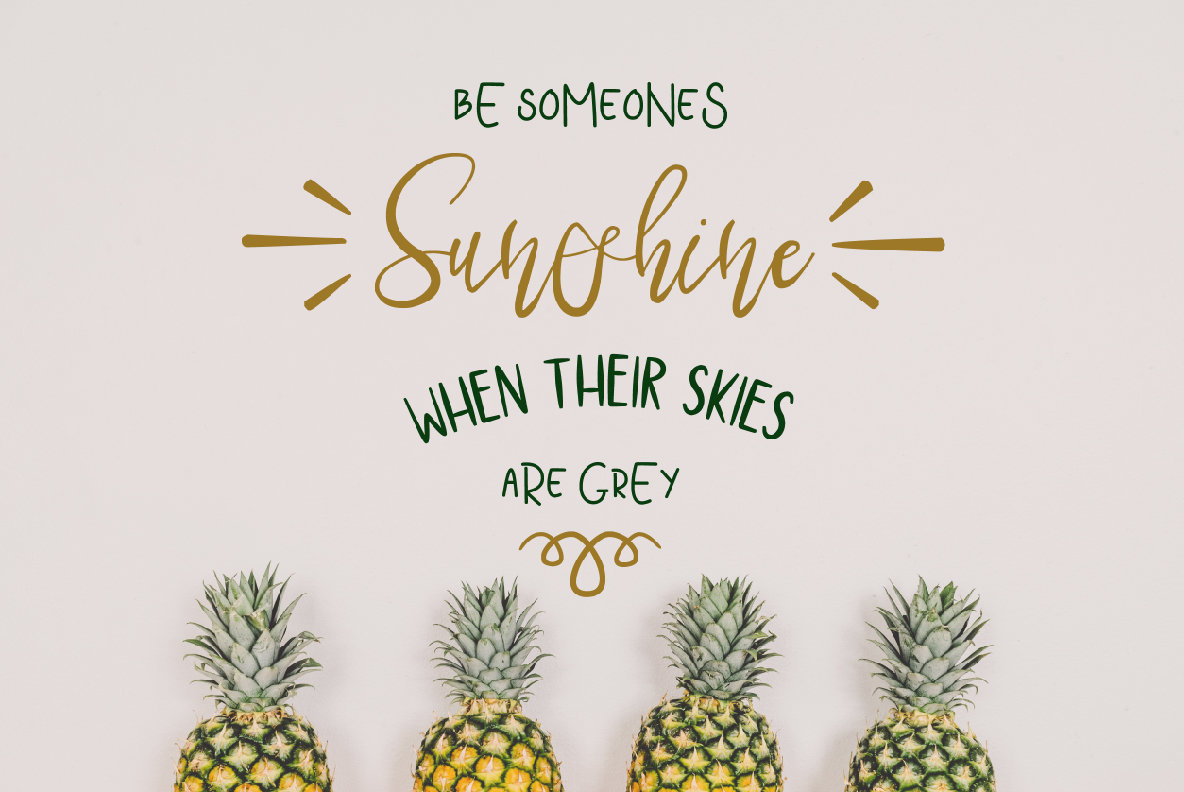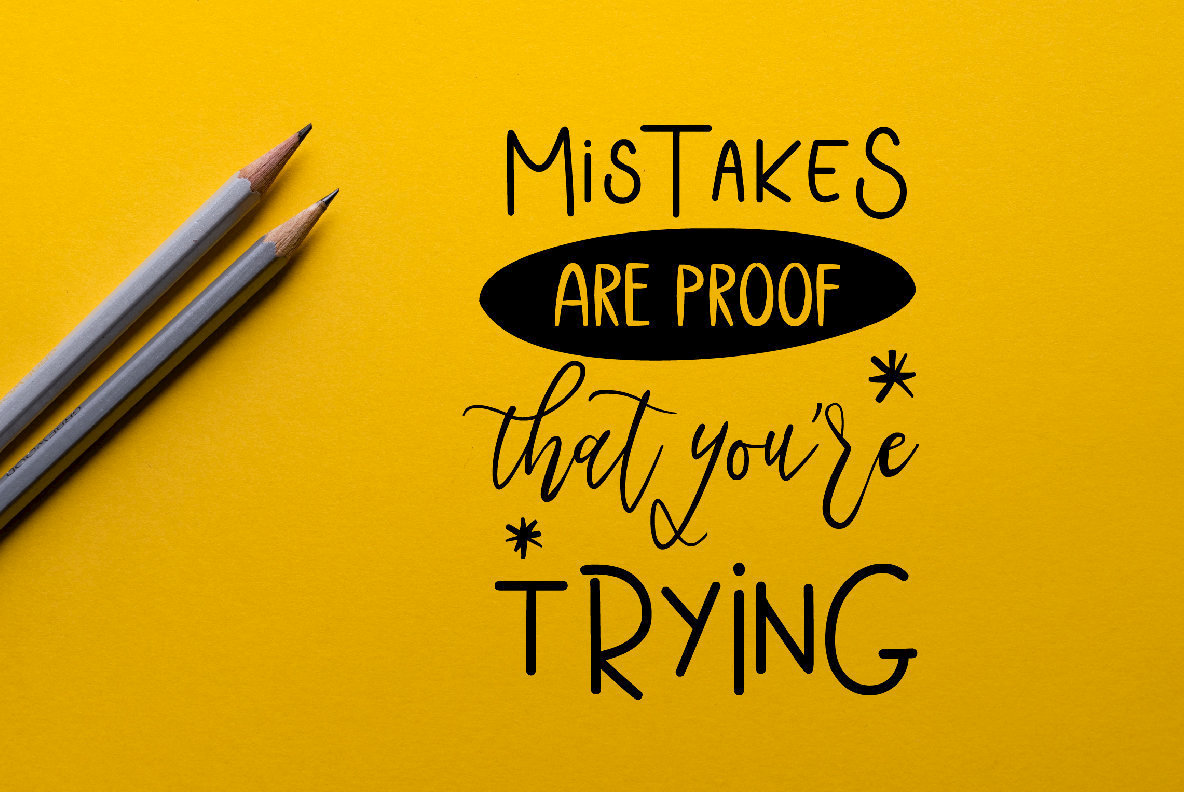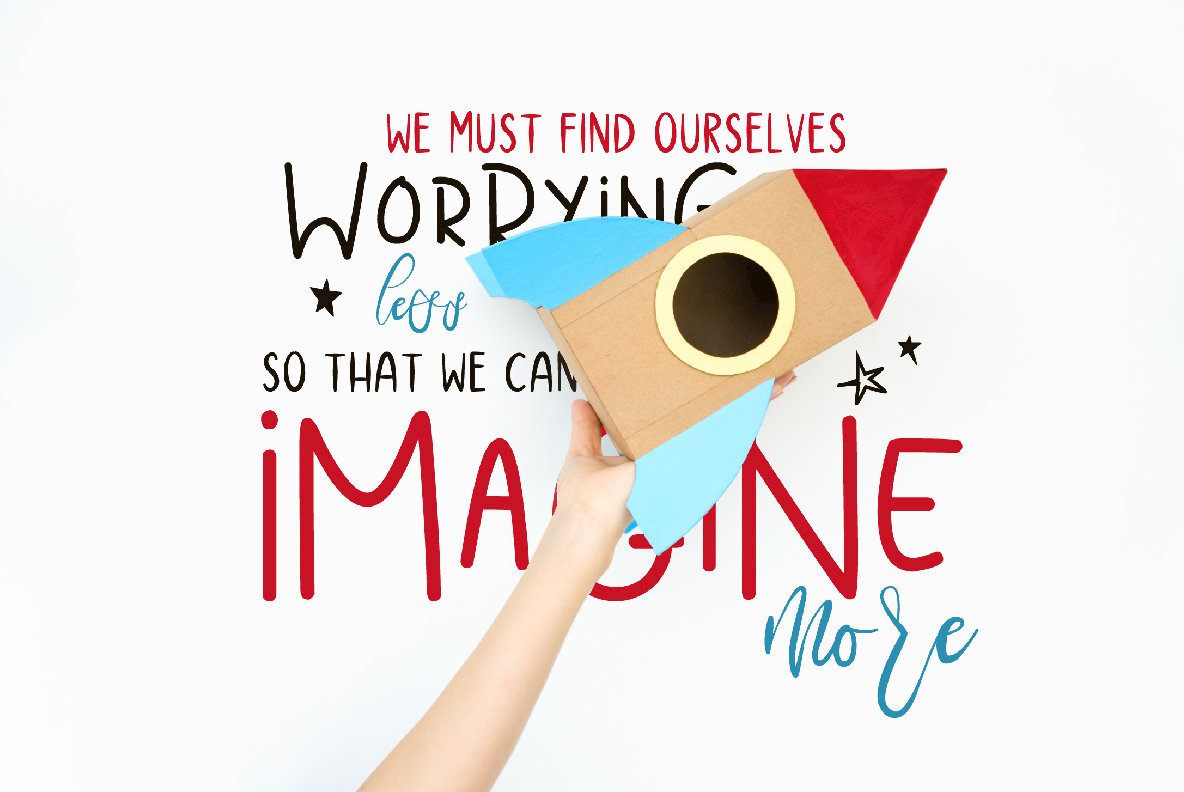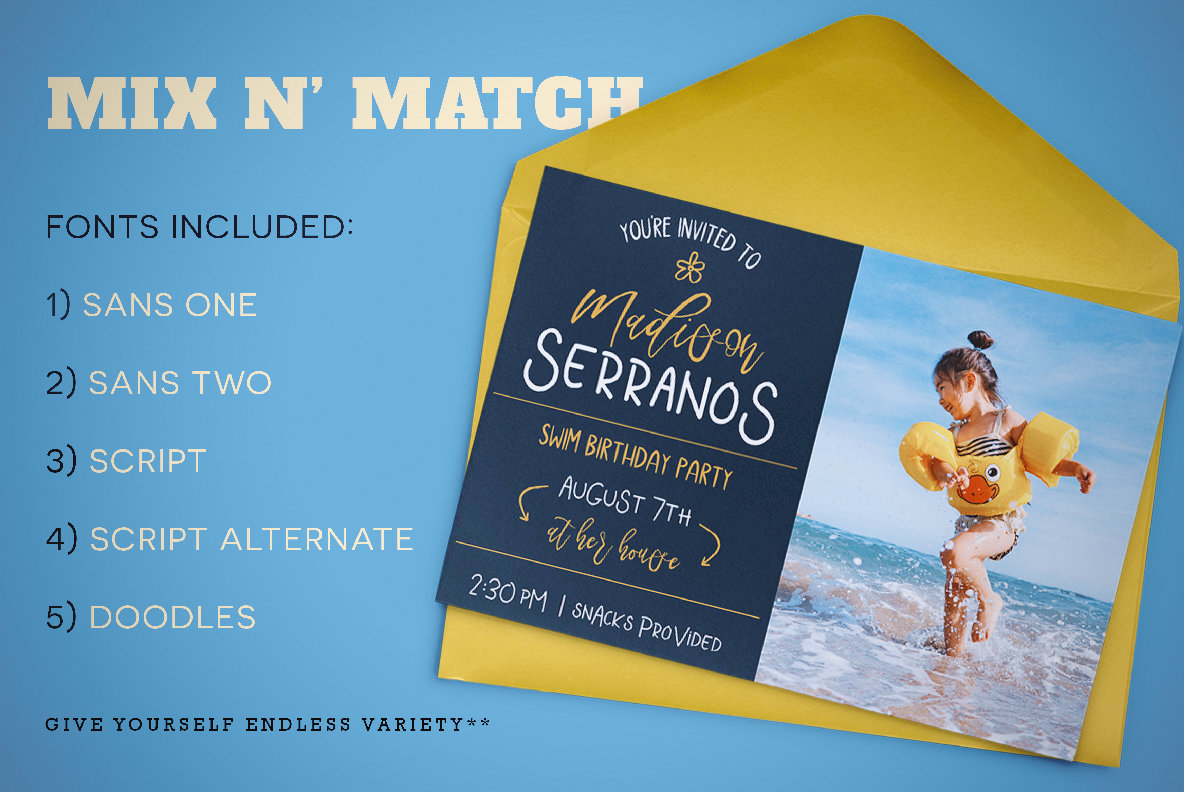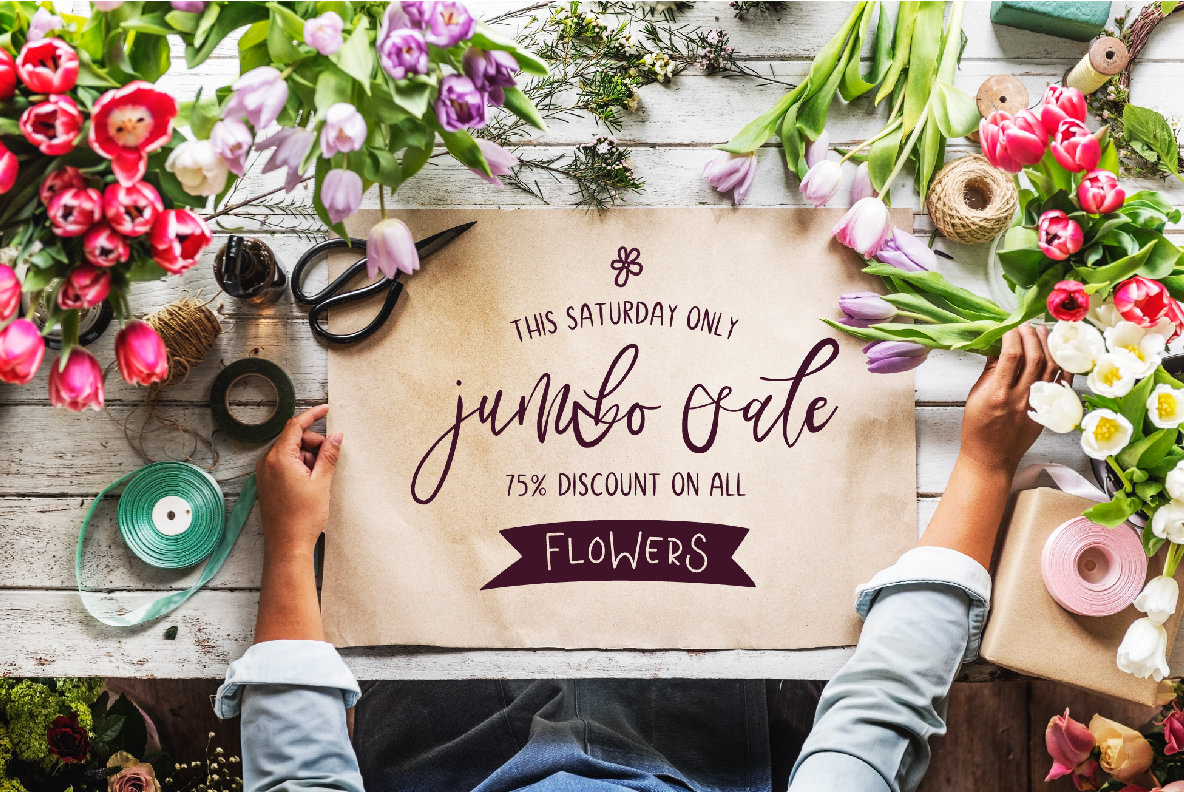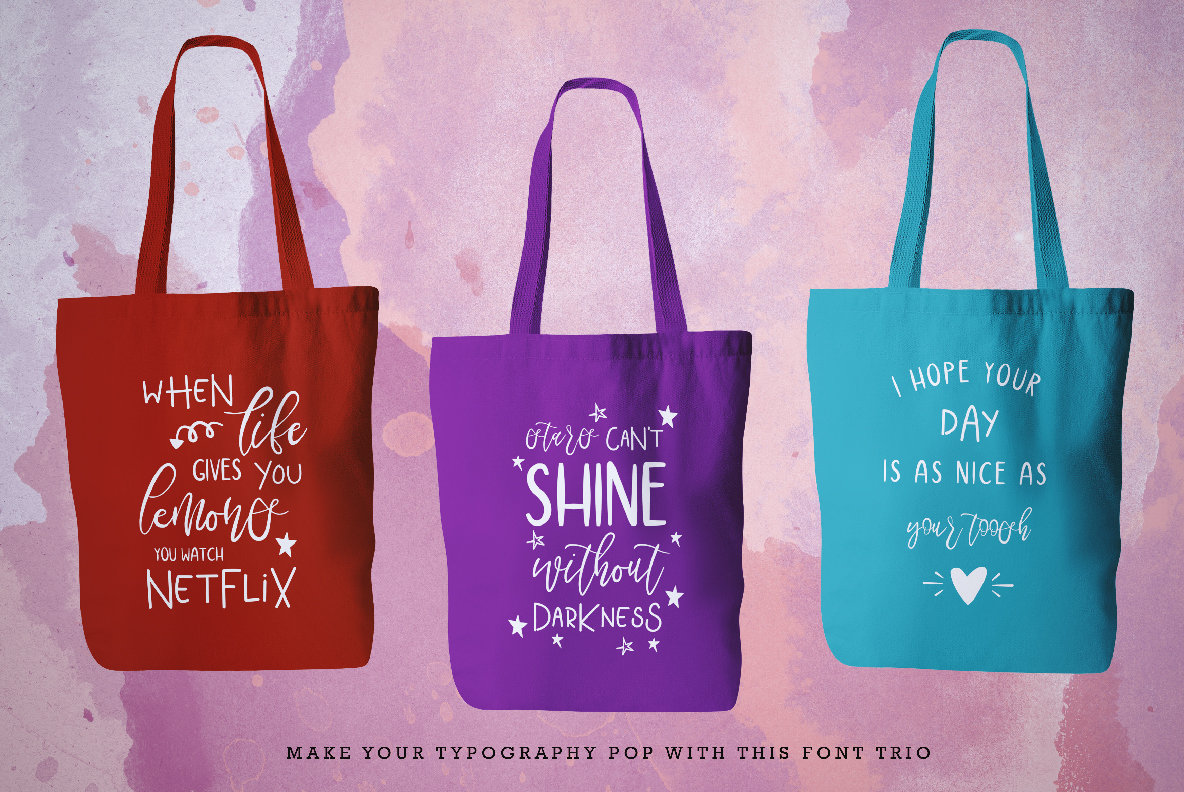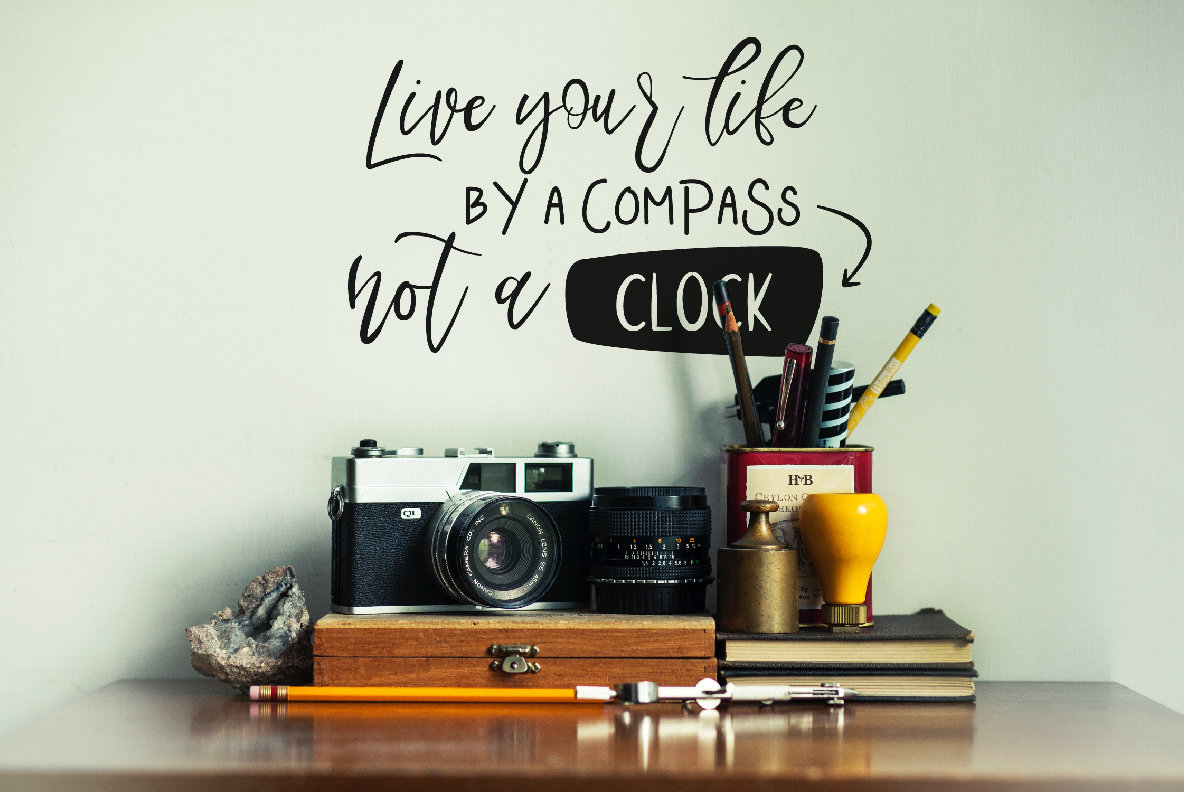
Lushmore Font
The Lushmore Font Trio is a fun-loving font pack that mix-and-match seamlessly! This bundle also comes with a set of doodles that will help make your designs pop! Perfect for prints, invitations, greeting cards, custom typography,and more!
1) Lushmore Script (A lovely script that will give your designs life)
2) Lushmore Sans 1 (A bubbly sans that will give your designs character)
3) Lushmore Sans 2 (A more straight-laced sans that will give your designs order)
4) Lushmore Doodles (26 quirky yet handy sketches to give your designs some fun)
5) Lushmore Script Alternate (26 bonus characters to switch things up with)
6) Over 100 Bonus Glyphs including International Language Support (ENGLISH, FRENCH, SPANISH, GERMAN, POLISH, ITALIAN, PORTUGUESE)